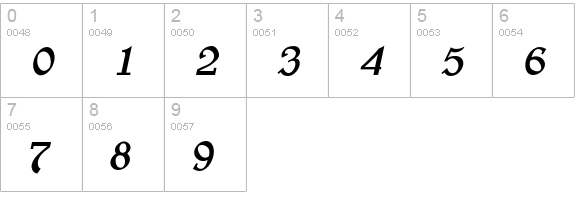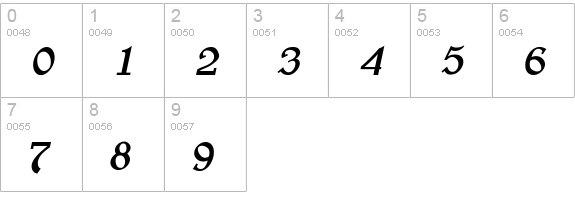
SafranBoldItalic Font Details
SafranBoldItalic is a striking and elegant font that truly stands out from the crowd. Its bold and italic design adds a touch of sophistication and flair to any project, making it perfect for headings, titles, and branding materials. With its smooth curves and stylish letterforms, SafranBoldItalic exudes a sense of confidence and creativity. What sets SafranBoldItalic apart is that it is not only a visually stunning font, but it is also freely available to download. At FontsMarket.com, you can easily access and use this font without any cost or restrictions. Whether you are a graphic designer, a student, or simply someone who appreciates beautiful typography, SafranBoldItalic offers you the opportunity to elevate your designs without breaking the bank. This font is versatile and adaptable, making it suitable for a wide range of projects. From fashion magazines to luxury branding to elegant invitations, SafranBoldItalic adds a touch of sophistication and professionalism to any design. Its bold and italic nature gives your words emphasis and a sense of importance, ensuring that your message is effectively communicated to your audience. SafranBoldItalic combines elegance and versatility with the convenience of being freely available for download. With just a few clicks, you can enhance your designs and make them truly captivating. So why wait? Visit FontsMarket.com today and experience the beauty and power of SafranBoldItalic for yourself.